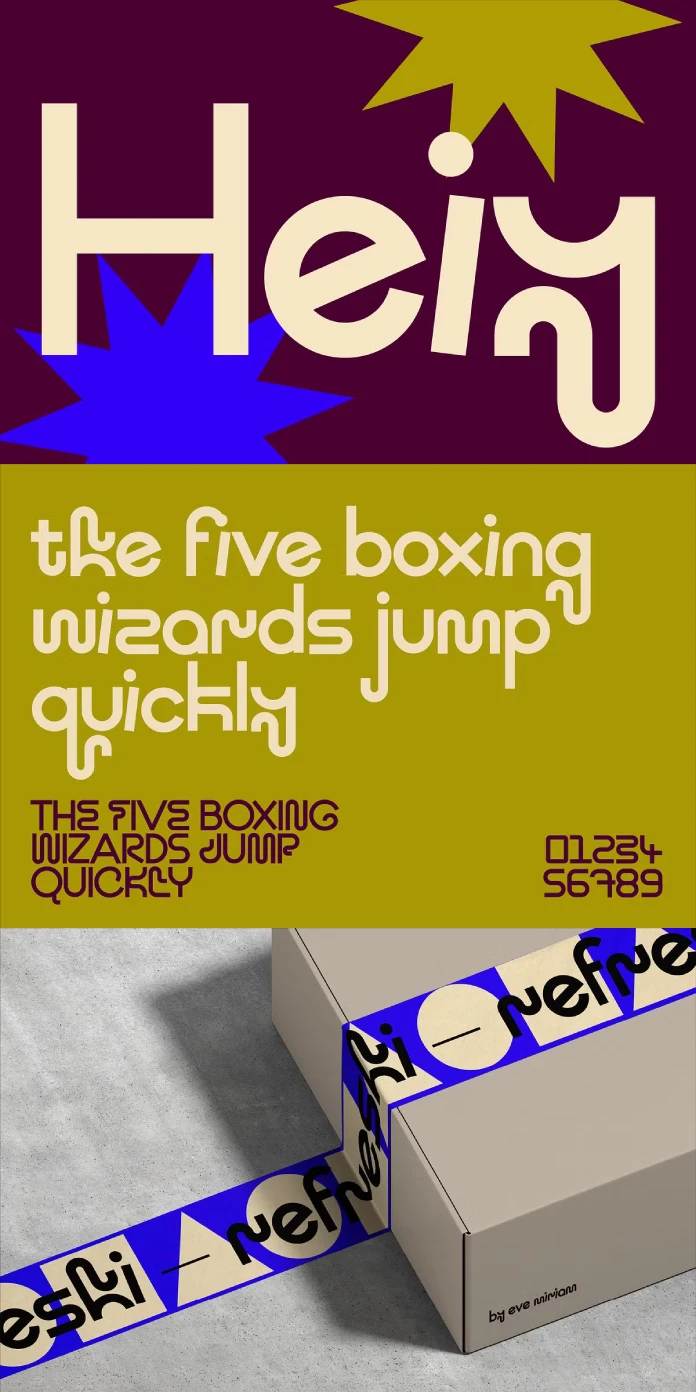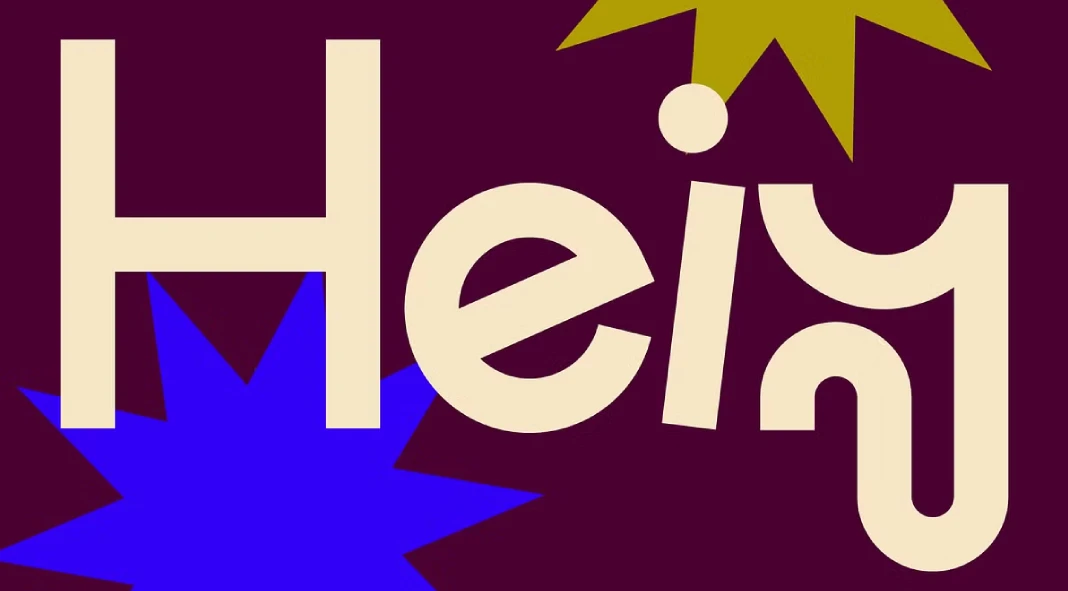
A Playful Sans-Serif for Fun Designs
New typefaces emerge regularly, each bringing its unique flair. One of the latest contributions is the Heiy typeface, designed by evemiriam. This fun sans-serif typeface is a fresh addition to modern design. It blends versatility and personality, making it suitable for various applications. This review delves into the characteristics, design inspiration, and potential use cases of Heiy.
Design Characteristics
Playful Aesthetics
The Heiy typeface is characterized by its rounded edges and soft curves. This design choice gives the typeface a friendly and approachable appearance. Unlike many geometric sans-serifs, Heiy embraces a more organic form. Each character appears inviting, encouraging interaction and engagement. This playful quality makes it ideal for brands looking to establish a lighthearted identity.
Versatile Letterforms
Heiy’s letterforms exhibit a perfect balance of simplicity and uniqueness. The uppercase letters are bold yet approachable. The lowercase letters maintain readability while adding character to any design. This versatility allows Heiy to function effectively across various platforms, from digital to print. Whether used in headlines or body text, the typeface stands out without overwhelming the reader.
Design Inspiration
A Contemporary Touch
Evemiriam draws inspiration from modern design trends while creating Heiy. The typeface reflects a blend of minimalism and playfulness. Designers today seek typefaces that capture attention and convey a message. Heiy successfully meets this demand. Its design reflects current aesthetics while remaining timeless, making it a valuable asset for designers.
Cultural Influences
In developing Heiy, the designer likely considered cultural influences. The typeface’s round forms can evoke feelings of warmth and familiarity. This quality resonates well with audiences across different backgrounds. The playful nature of Heiy appeals to both young and mature audiences, making it an inclusive choice for branding.
Use Cases
Branding and Marketing
Heiy is well-suited for branding and marketing materials. Its playful design makes it an excellent choice for businesses in creative industries, such as art, design, and entertainment. Logos, brochures, and social media graphics can benefit from Heiy’s unique characteristics. The typeface can help brands convey their identity while standing out in a competitive market.
Digital Design
In the realm of digital design, Heiy shines brightly. The typeface is legible on screens, making it suitable for websites, apps, and online advertisements. Designers can use Heiy to create engaging user interfaces and memorable call-to-action buttons. Its friendly nature can enhance the overall user experience, encouraging interaction.
Editorial Projects
Heiy also lends itself well to editorial projects. Magazines, newsletters, and blogs can utilize the typeface to create captivating layouts. Its readability and visual appeal make it a strong candidate for both headlines and body text. The playful touch of Heiy can bring life to any editorial content, attracting and retaining readers’ attention.
The Heiy typeface is a delightful addition to the world of typography. Its playful aesthetics, versatile letterforms, and contemporary design make it a valuable tool for modern designers. Whether used for branding, digital design, or editorial projects, Heiy captures attention while maintaining readability. Designers seeking a fun and engaging sans-serif typeface will find Heiy to be an excellent choice. As trends evolve, Heiy stands ready to make its mark in the design landscape.